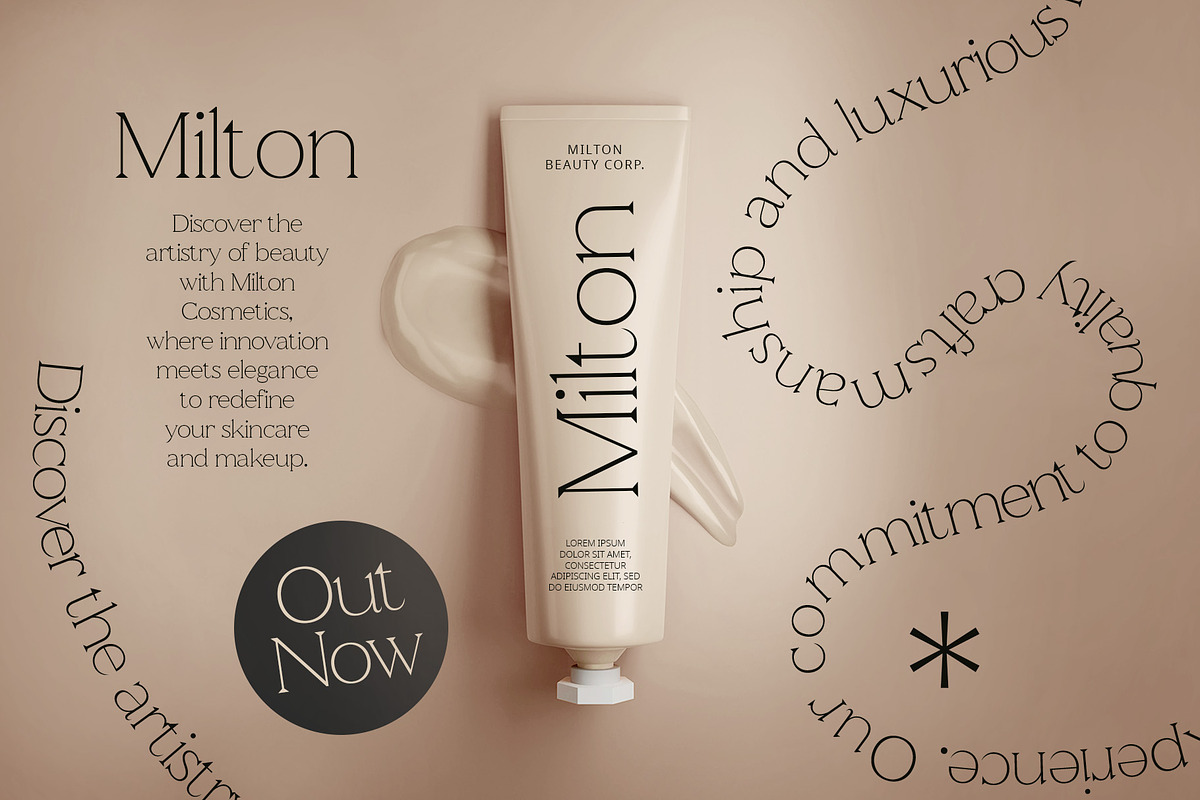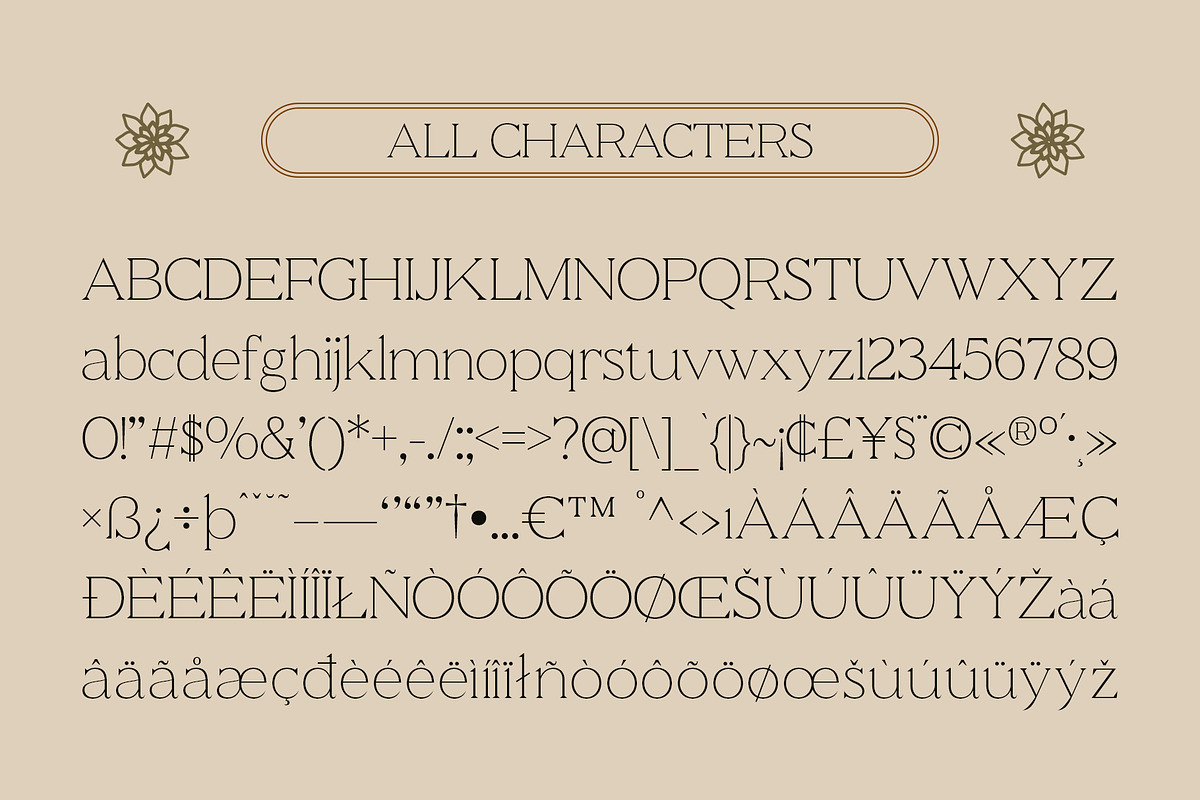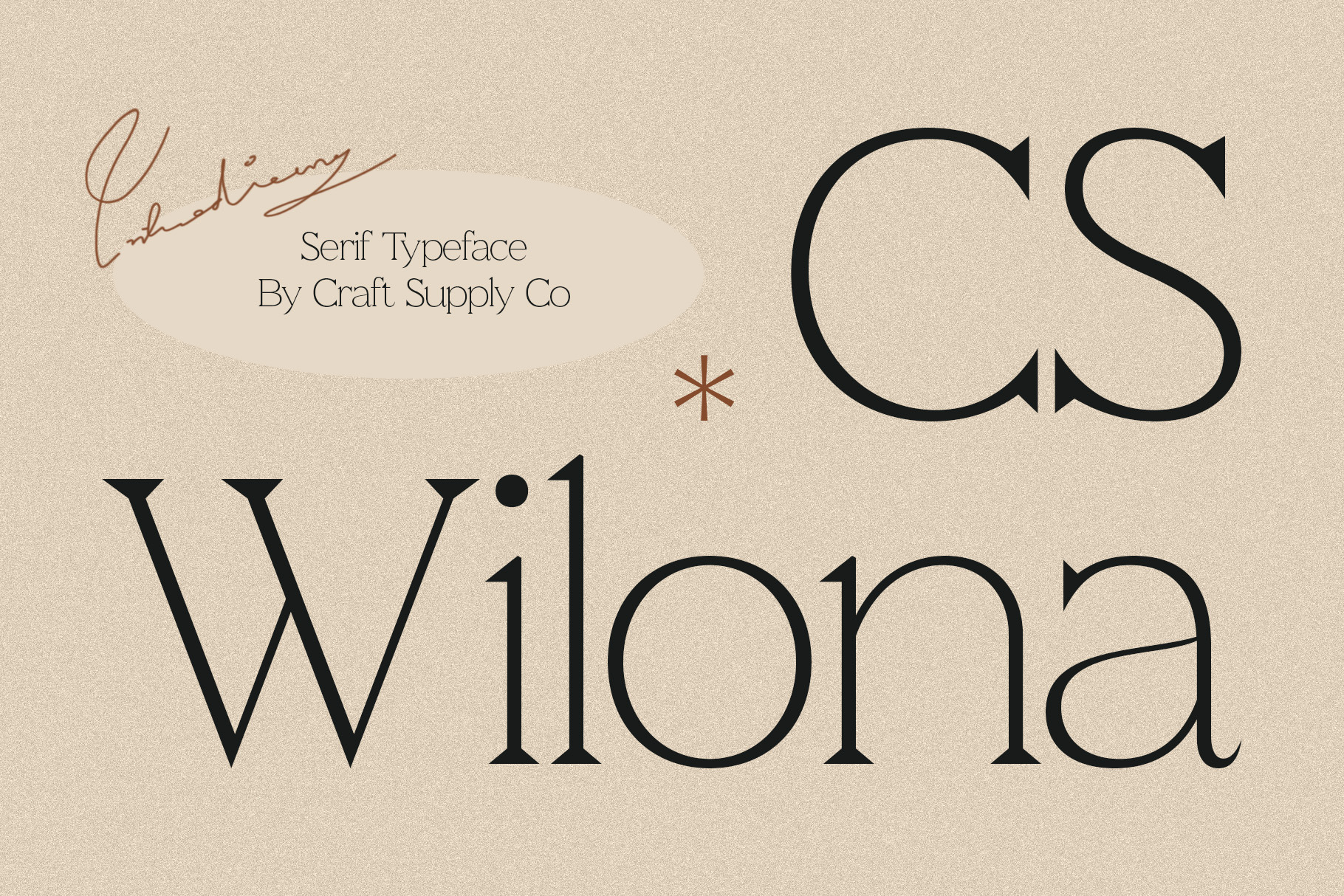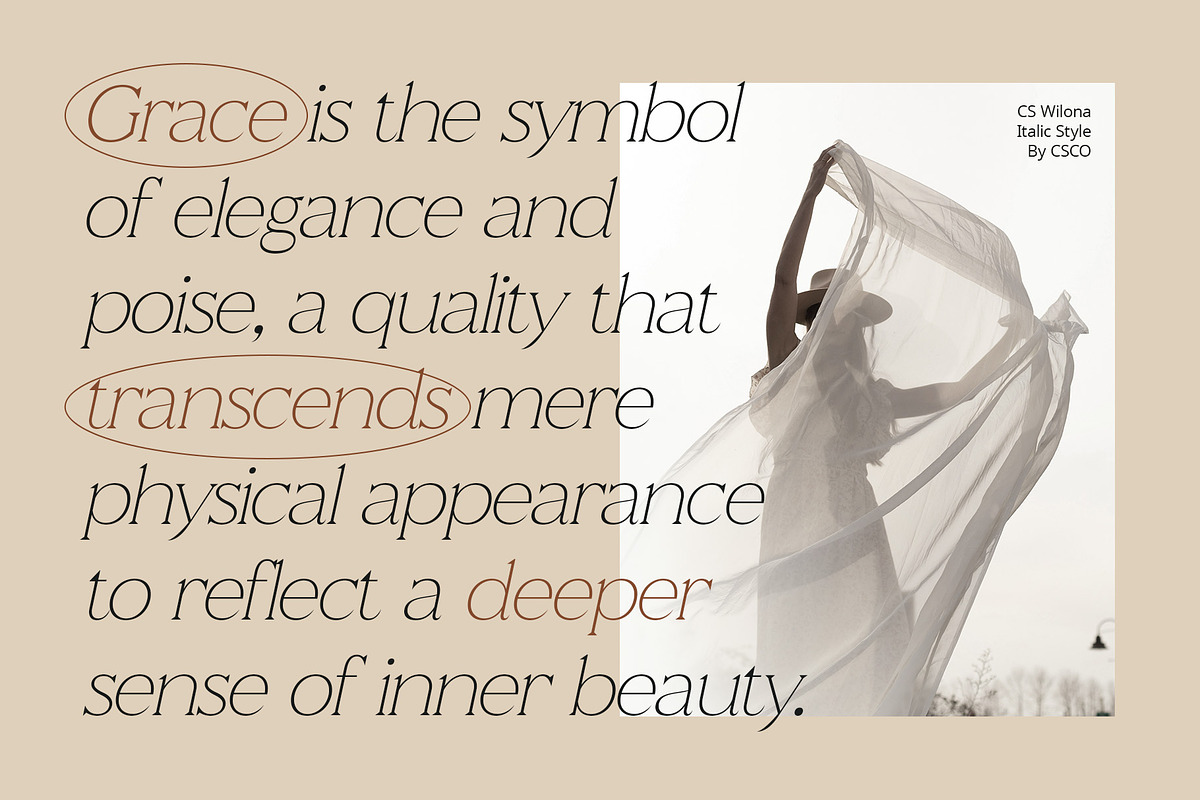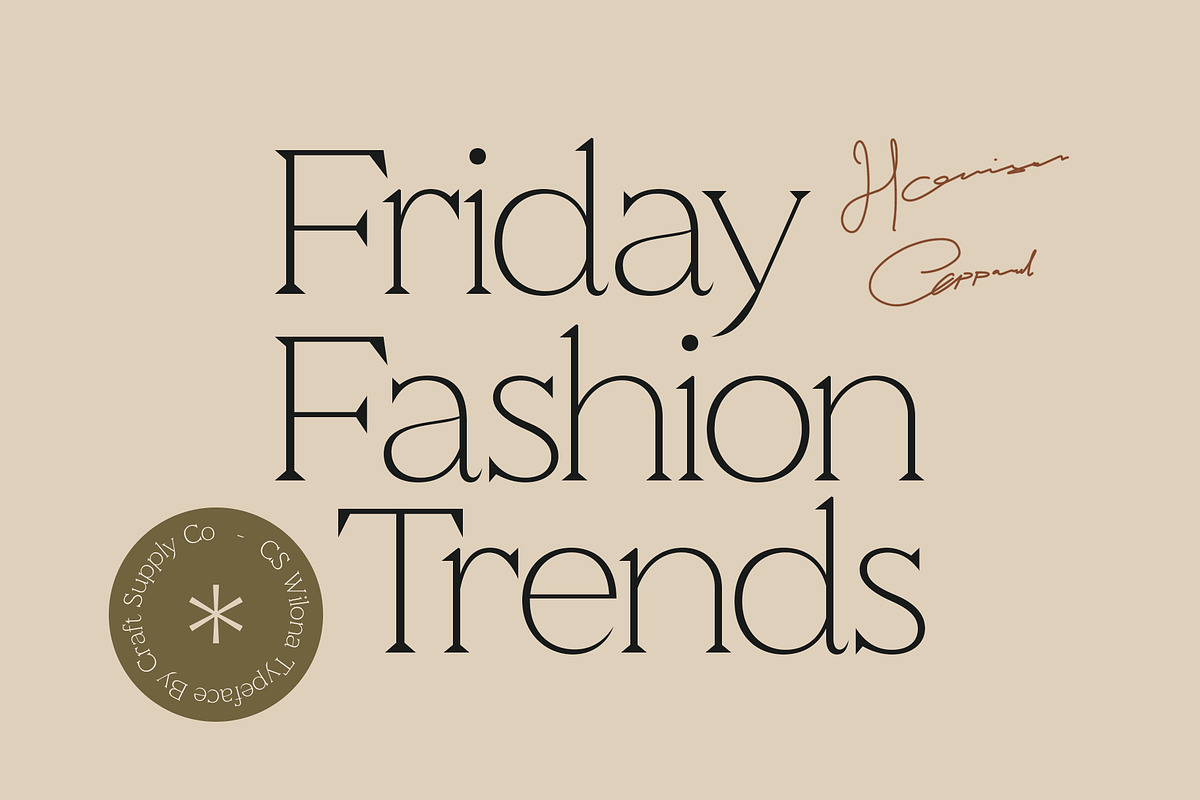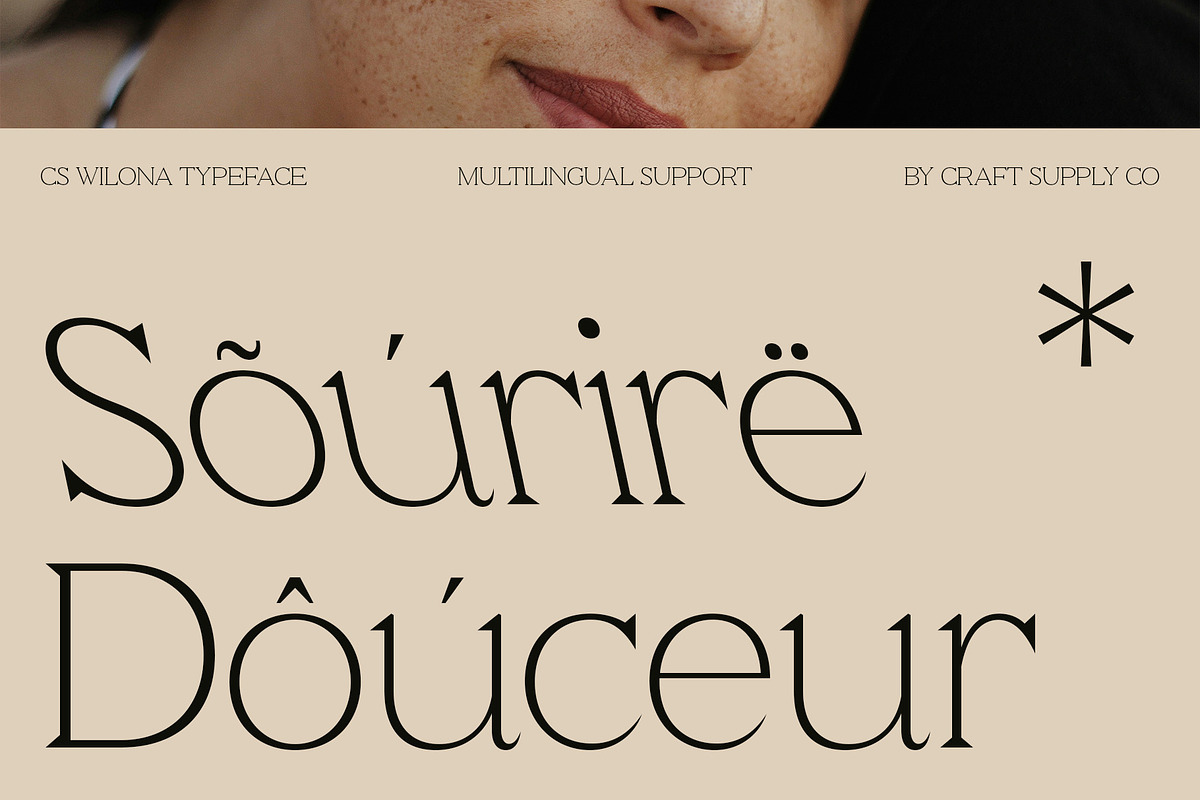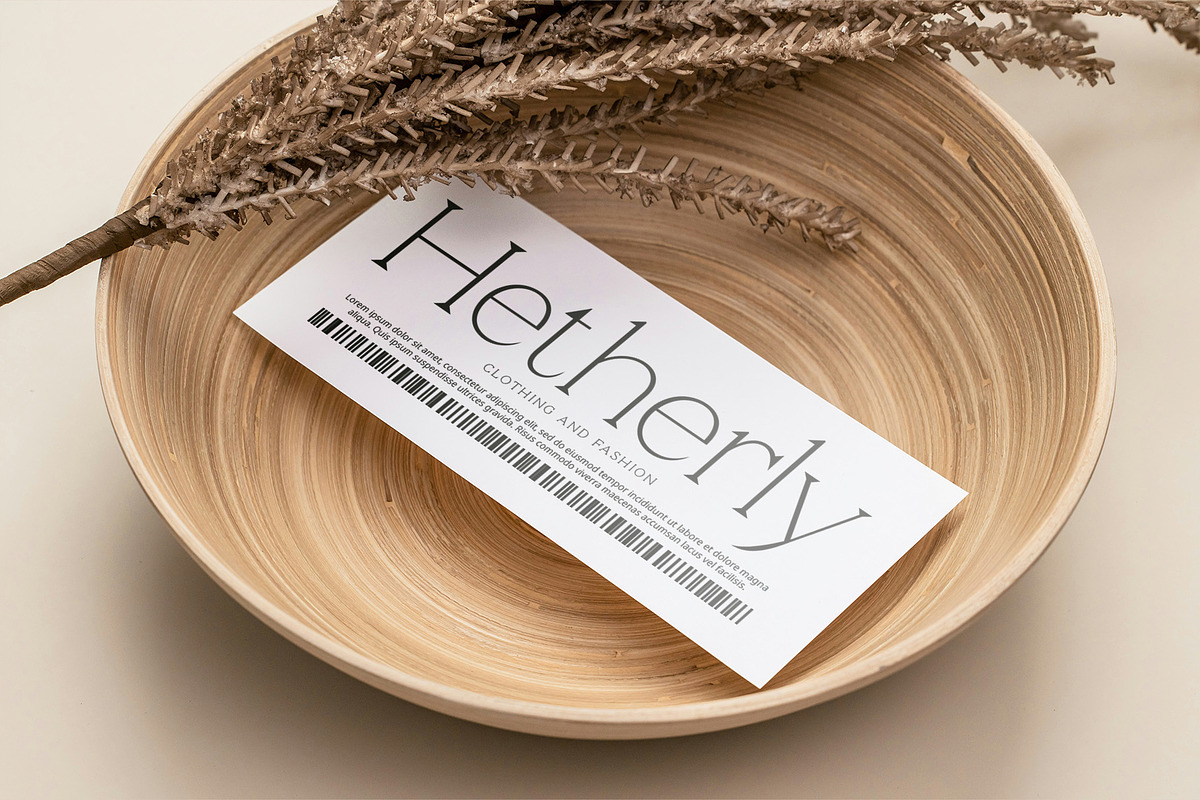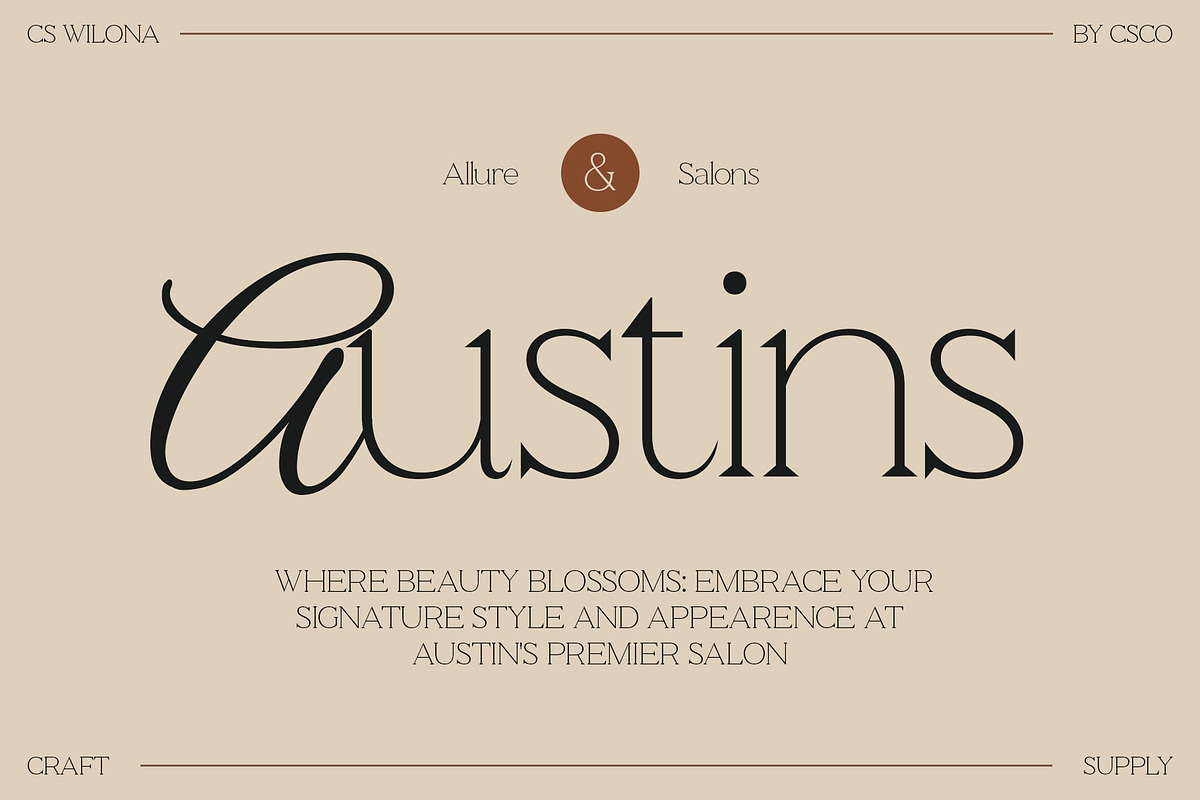
CS Wilona – Serif Typeface
CS Wilona: Modern Serif Typeface
Sleek Elegance and Refined Charm
CS Wilona is a modern serif font that combines elegance and charm with its sleek lines and sophisticated style. This typeface is ideal for projects aiming to exude refinement and timeless beauty across various design applications.
Sophisticated and Stylish Design
With its sleek lines and sophisticated details, CS Wilona embodies modern elegance and refined charm. Each character is crafted to enhance readability while adding a touch of grace to your typography.
Perfect for Premium Projects
Ideal for branding, editorial layouts, and luxury packaging, CS Wilona enhances your designs with its stylish and elegant appearance. Whether used for logos, magazine spreads, or high-end product packaging, this serif typeface brings a sense of sophistication and timeless beauty to your projects.
Elevate Your Designs with CS Wilona
Choose CS Wilona to elevate your designs with a modern serif typeface that blends elegance and charm effortlessly. This cs font ensures your projects achieve a refined and sophisticated look, making them stand out with grace and timeless appeal.